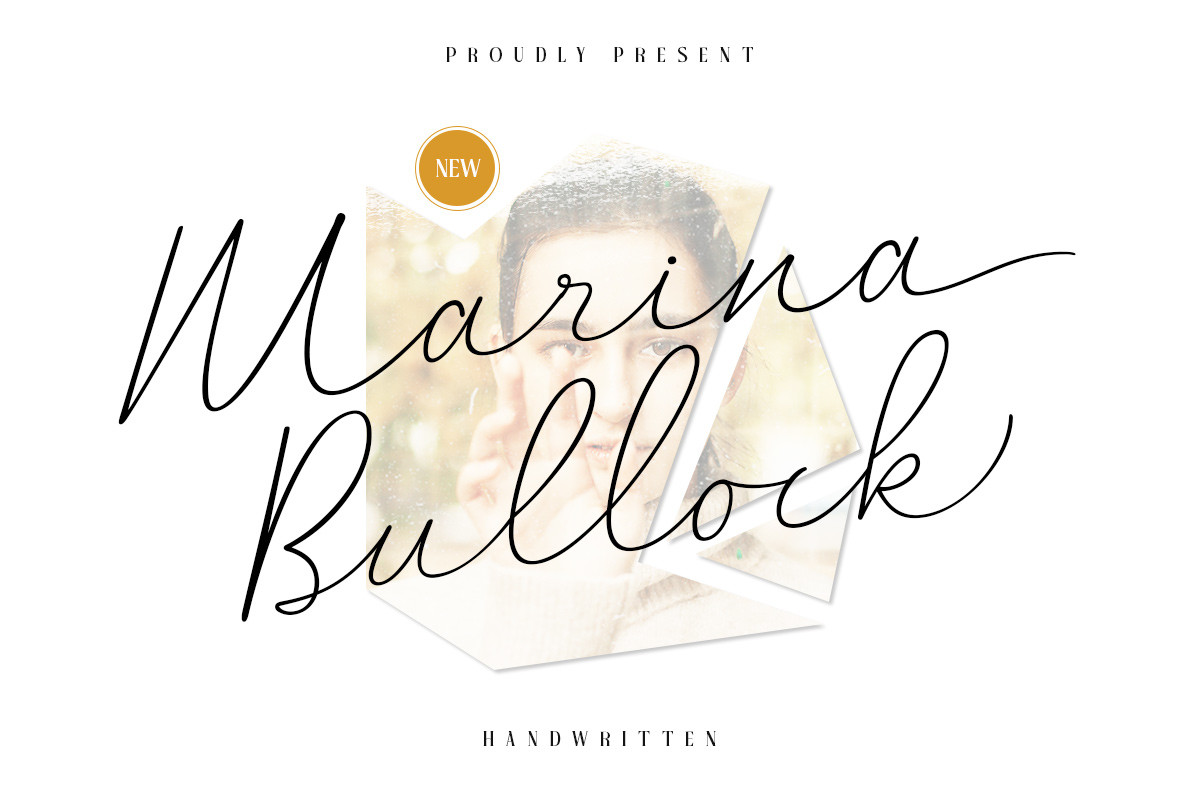
Marina Bullock Font
This sophisticated and contemporary typeface is perfect for maritime industry branding, yacht club signage, coastal resort marketing, nautical-themed restaurants, beach club logos, sailing equipment packaging, ocean conservation campaigns, marine life documentaries, and waterfront property developments that require an elegant maritime aesthetic.
Marina Bullock Font brings excitement to design projects with its fluid, wave-inspired letterforms and refined nautical character. The font features graceful curves that mimic the gentle flow of ocean waves while maintaining exceptional readability and professional sophistication. Its maritime-inspired design elements and coastal elegance make it an ideal choice for brands that want to communicate serenity, adventure, and the timeless appeal of ocean life in their visual communications.
The Marina Bullock Font family includes comprehensive oceanic styles: Regular, Bold, Light, Wave, Condensed, Extended, and Italic variations. Each weight maintains the font's distinctive maritime character while offering designers complete flexibility for creating cohesive nautical branding systems. The family also features special maritime symbols, anchor-inspired glyphs, decorative wave elements, and comprehensive language support for international coastal markets.
When searching for nautical typography solutions, Marina Bullock Font Free Download represents the perfect fusion of maritime tradition and contemporary design excellence. Professional designers consistently choose this font for its ability to evoke the romance and adventure of ocean life while ensuring optimal readability across all applications. The typeface performs beautifully from delicate yacht club invitations to large-scale harbor signage, maintaining its coastal charm at every scale.
The font's maritime craftsmanship includes carefully balanced proportions inspired by naval typography, advanced OpenType features, and superior performance across both digital and marine-environment printing applications. Whether you're designing for luxury yacht brands, coastal hospitality venues, or marine conservation organizations, this font delivers the sophisticated nautical aesthetic that resonates with ocean enthusiasts and coastal communities.